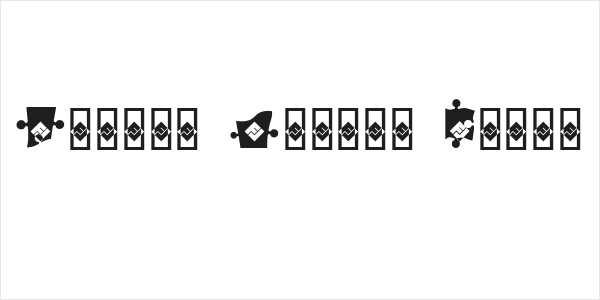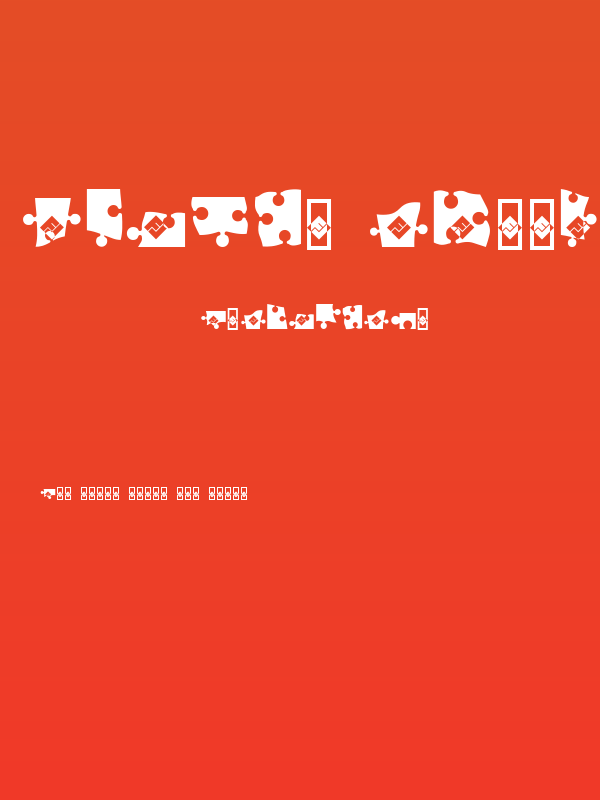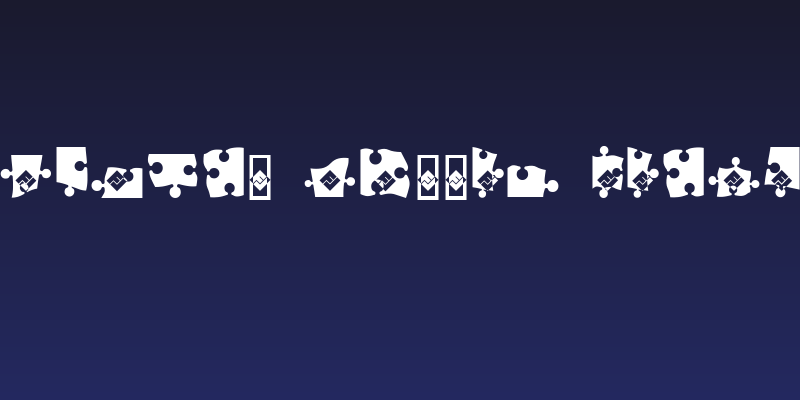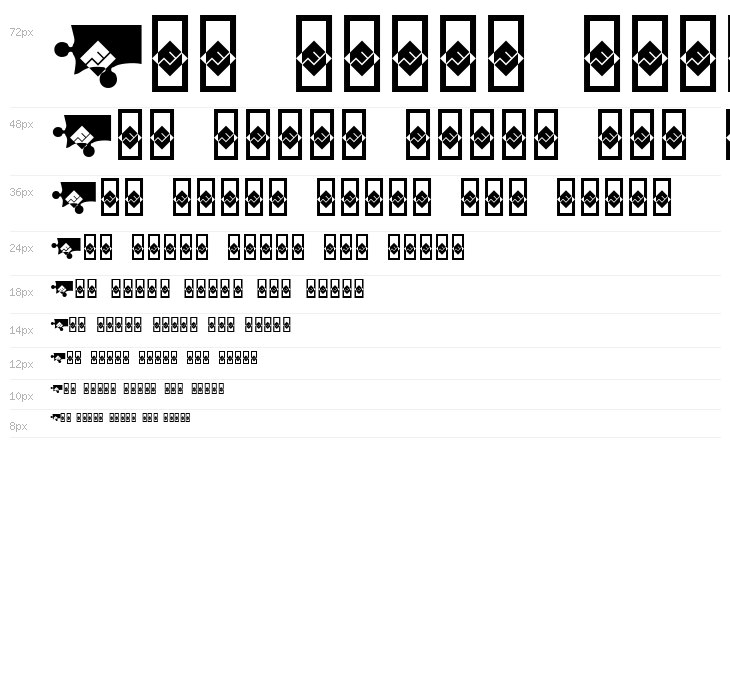
Jigsaw Puzzle Black Font
Jigsaw Puzzle Black Description
This font is a highly creative and decorative typeface that mimics the appearance of jigsaw puzzle pieces. Each character is designed to resemble a puzzle piece, with interlocking tabs and blanks that suggest connectivity and playfulness. The bold, black shapes are striking and visually engaging, making it ideal for projects that require a unique and eye-catching design. The font's playful nature makes it suitable for children's projects, games, or any creative endeavor that seeks to evoke a sense of fun and imagination. The characters are evenly spaced, maintaining a consistent and cohesive look across the entire set.
| Proposed Projects | Ideal for children's books, game packaging, playful branding, and creative posters. |